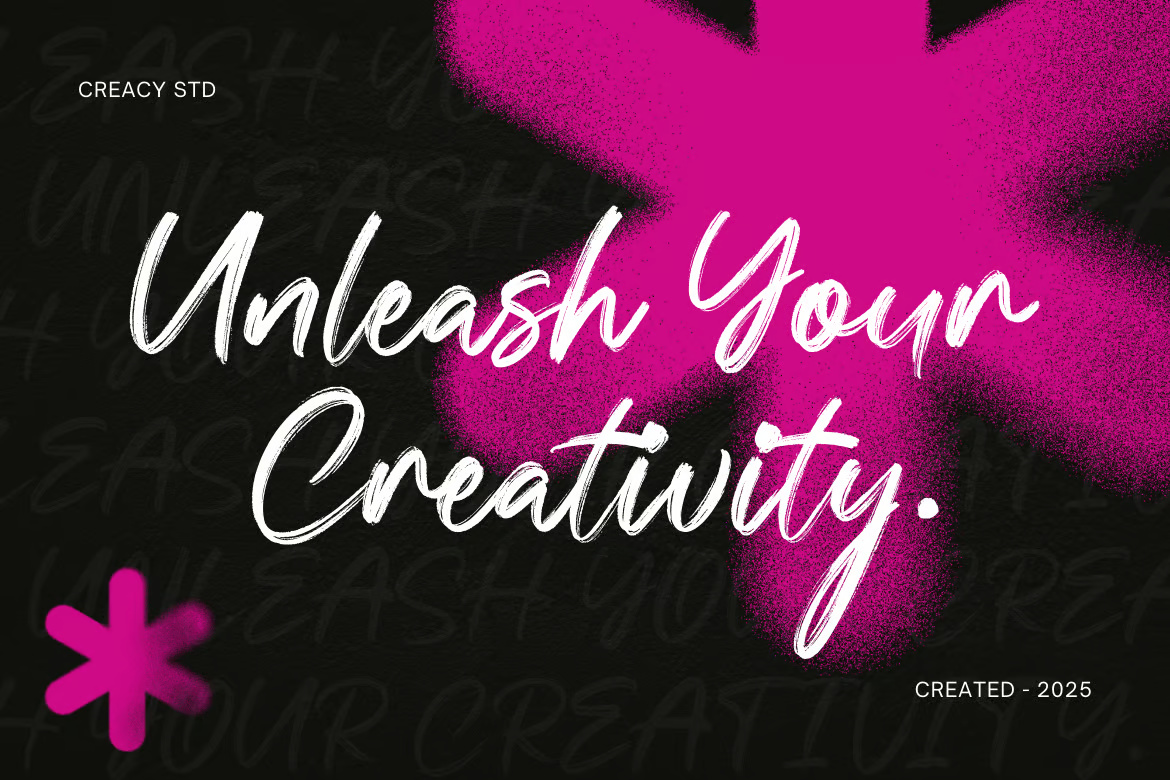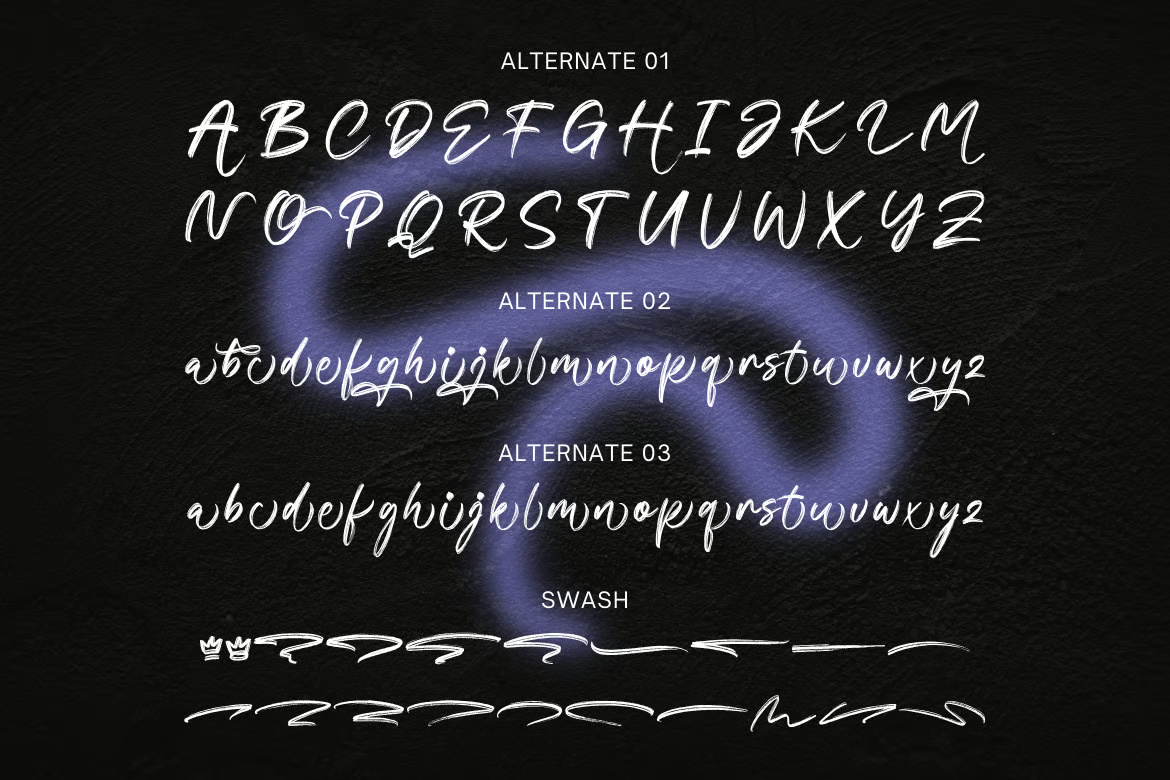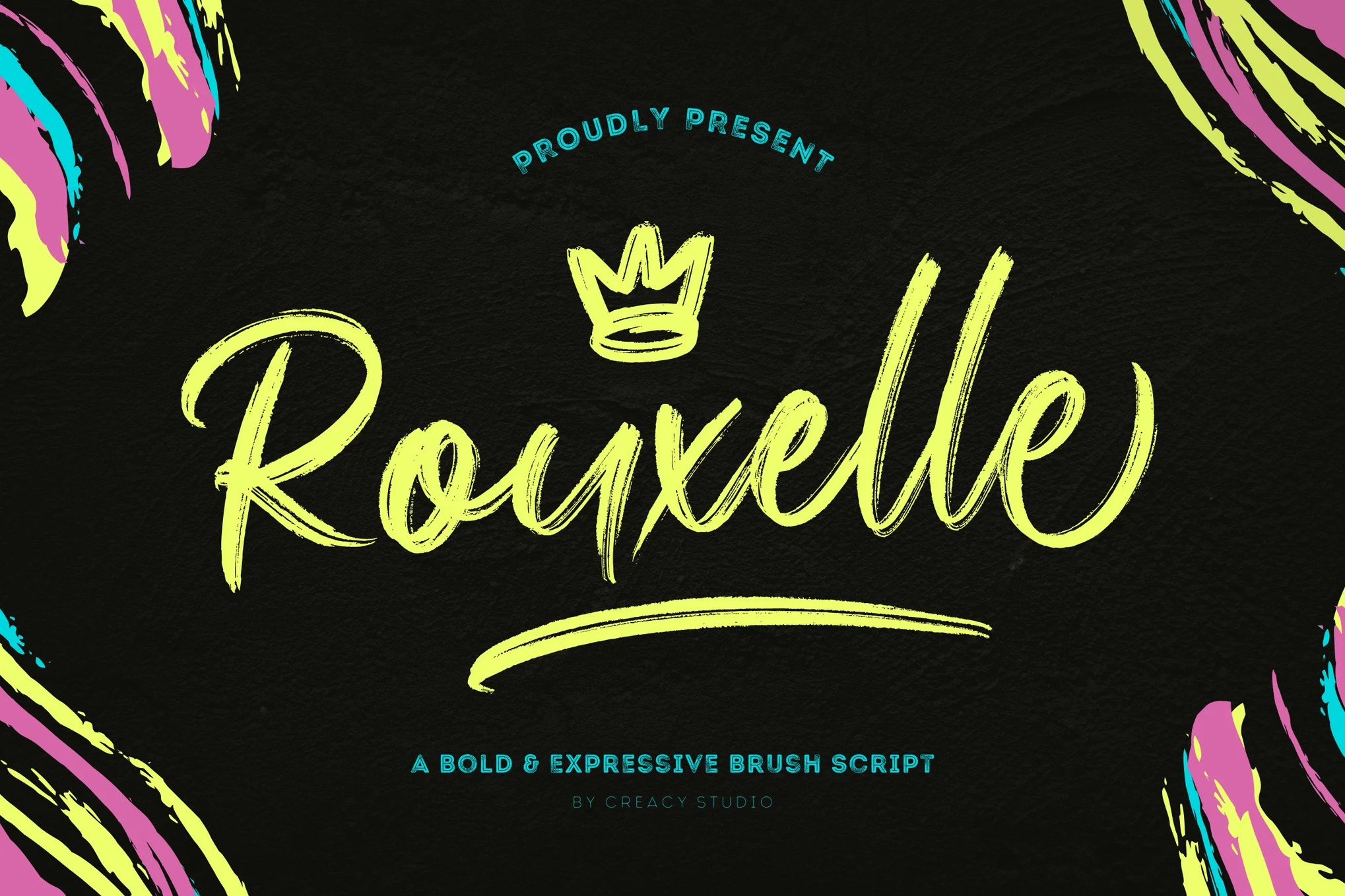
Unleash the raw energy of Rouxelle, a modern brush script designed for those who dare to make an impact. With its bold, sweeping strokes and effortless flow, Rouxelle captures the essence of creativity and authenticity, making it an exceptional choice for projects that demand attention. Every letter is crafted with a hand-painted feel, exuding confidence and dynamic movement that brings designs to life.
Perfect for statement-making visuals, Rouxelle thrives in branding, apparel, sports marketing, and street-style designs. Its edgy, modern aesthetic makes it ideal for logos, merchandise, and high-energy promotional materials, ensuring a striking presence across digital and print platforms. Whether used for poster headlines, product packaging, or eye-catching social media graphics, Rouxelle delivers an expressive and powerful typographic experience.
Rouxelle A Bold & Expressive Modern Brush Script